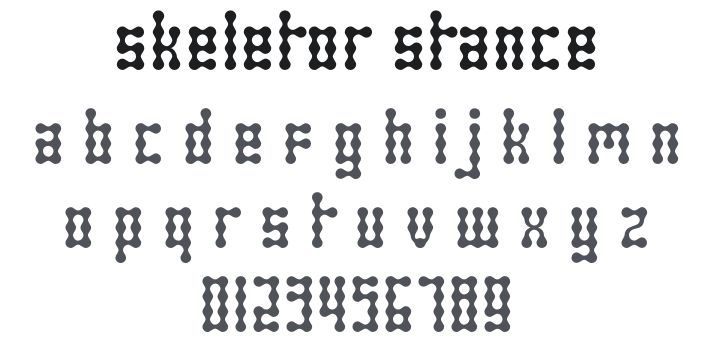
Skeletor Stance Font
About Skeletor Stance
Skeletor Stance is a peculiar modular display typeface built entirely from colloidal blob shapes — rounded, organically connected masses that merge and flow into readable letterforms like microscopic organisms viewed under a lens. The result is simultaneously scientific, playful, and alien. Perfect for sci-fi and biology-themed designs, experimental branding, children's quirky projects, creative posters, and any headline that needs a uniquely strange, blobby personality.